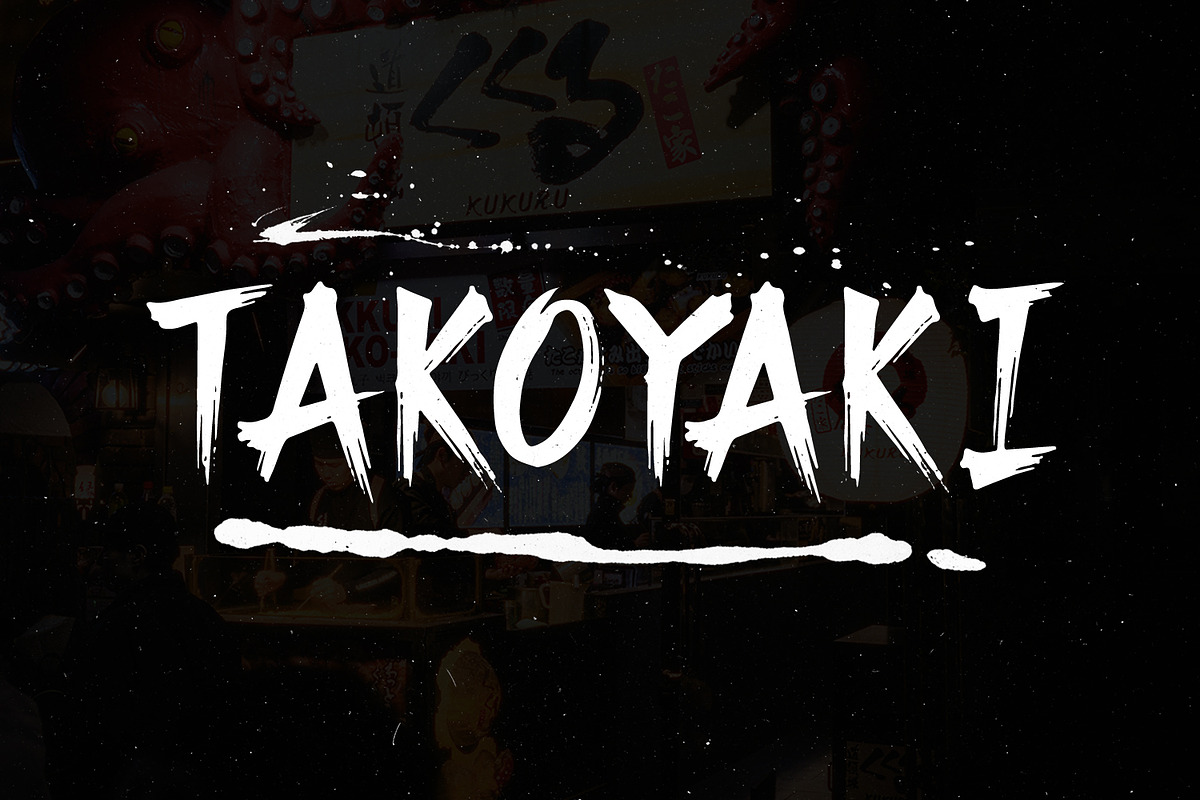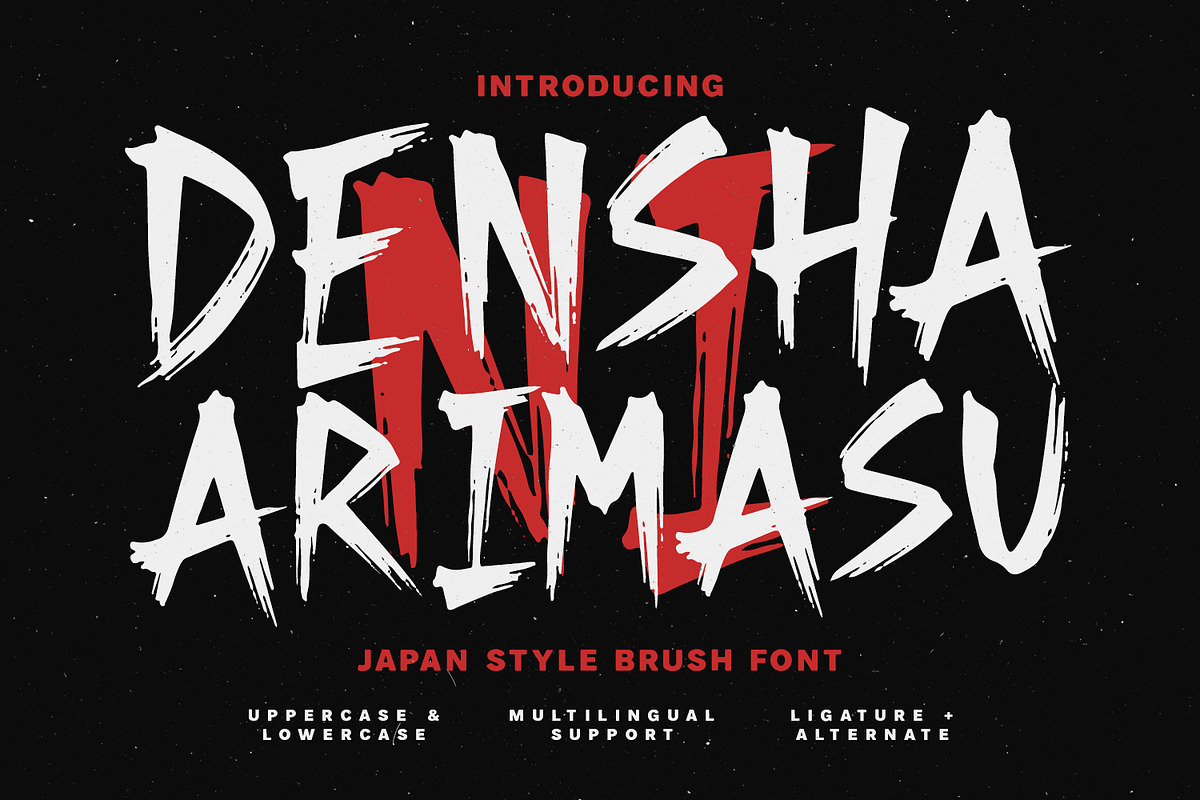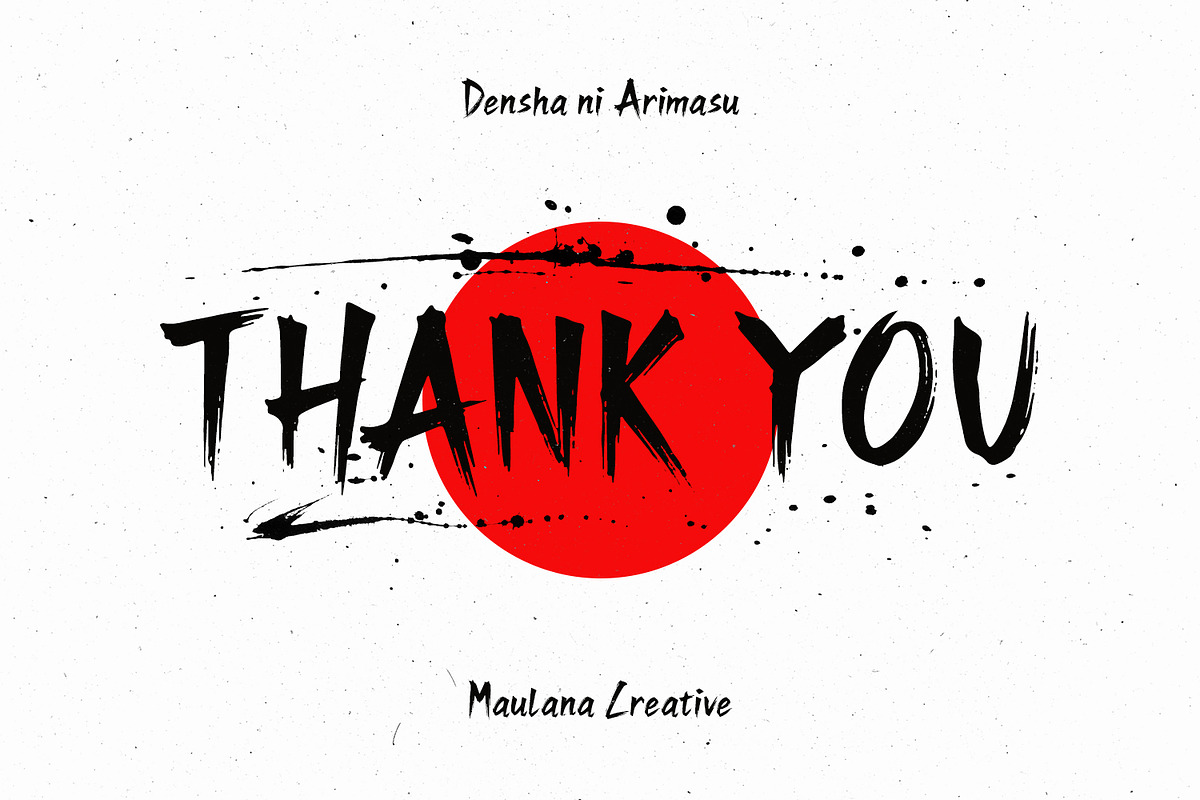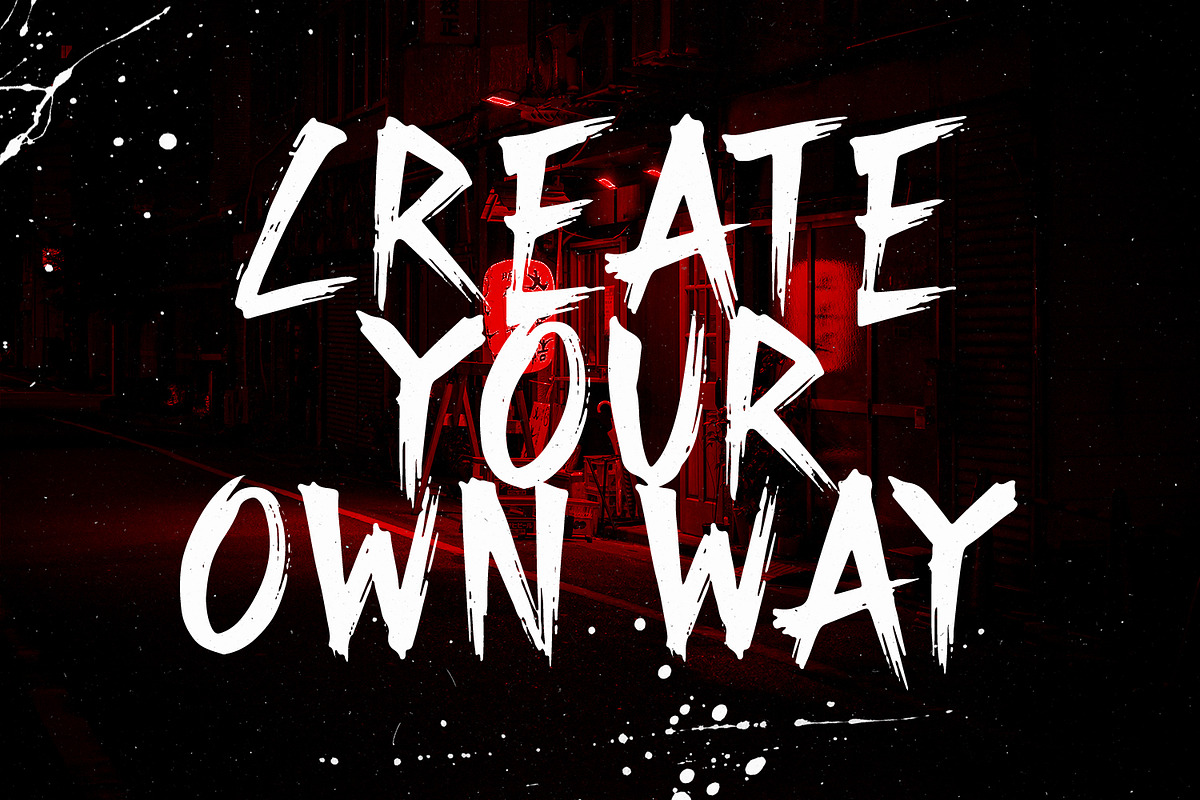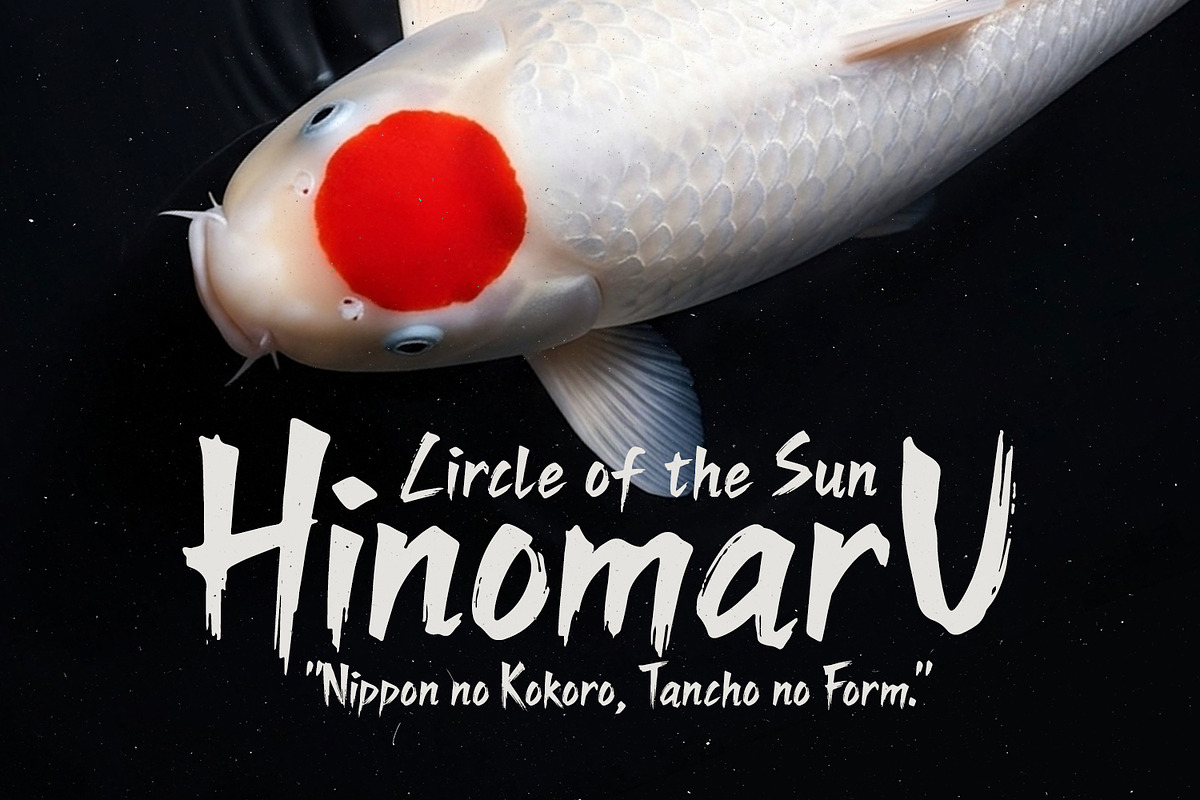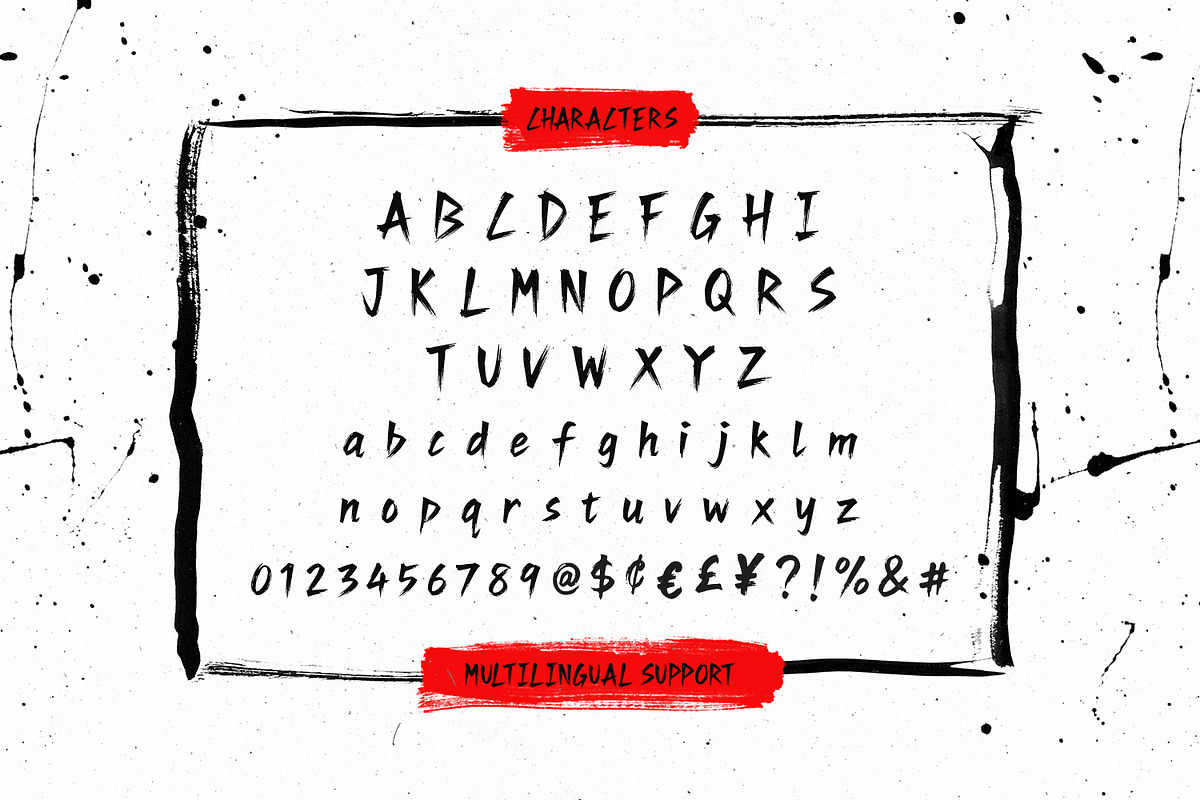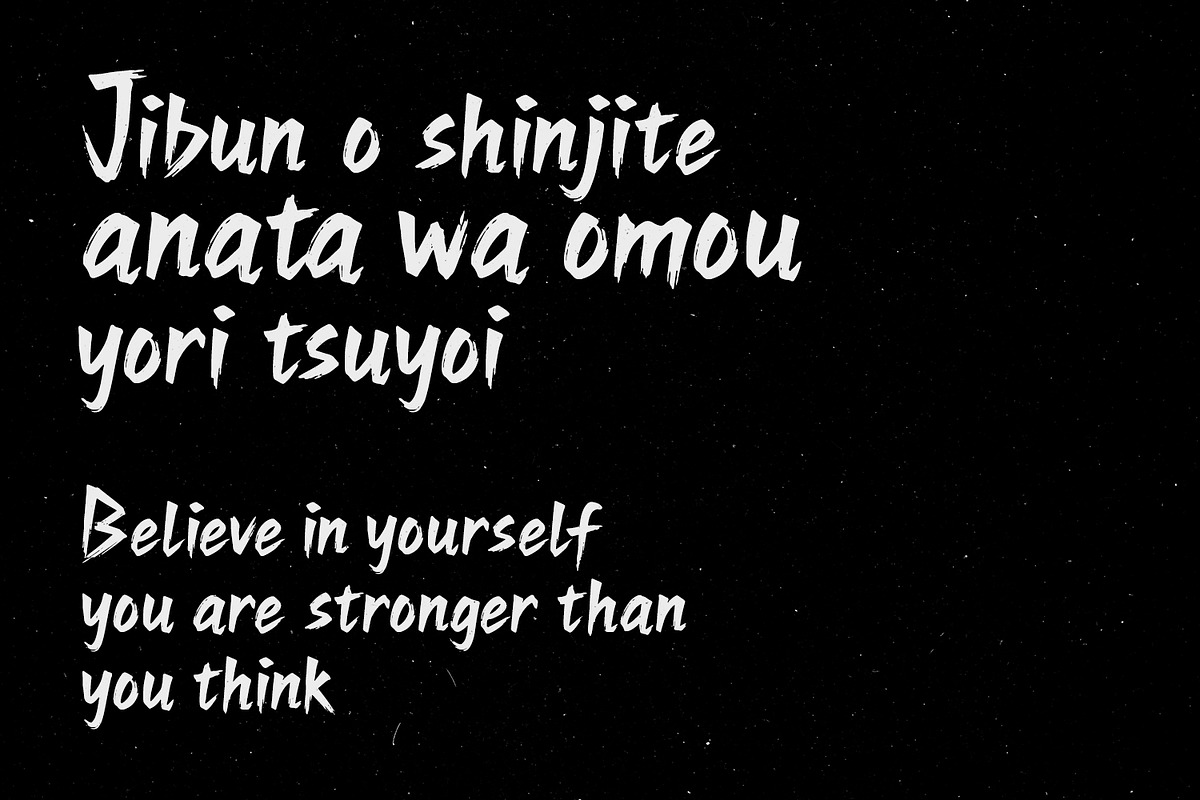
Densha Ni Arimasu Japanese Brush
Densha Ni Arimasu is a dynamic Japanese-style brush font designed to bring bold energy and expressive calligraphy to any design project. Featuring raw, textured brush strokes with natural ink splatters, this typeface captures the intense essence of traditional East Asian brush lettering combined with a modern edge. Complete with uppercase, lowercase, numbers, punctuation, ligatures, alternates, and multilingual support, it provides complete flexibility for creating eye-catching typography.
This versatile typeface is ideal for branding, movie posters, game titles, restaurant signage, packaging, social media graphics, and merchandise design. Its sharp, energetic letterforms add a strong dramatic flair to headlines, logotypes, display banners, and promotional materials. Whether aiming for an authentic oriental aesthetic or an edgy modern look, Densha Ni Arimasu stands out with power and artistic passion.
- Ligature for a natural handwriting flow